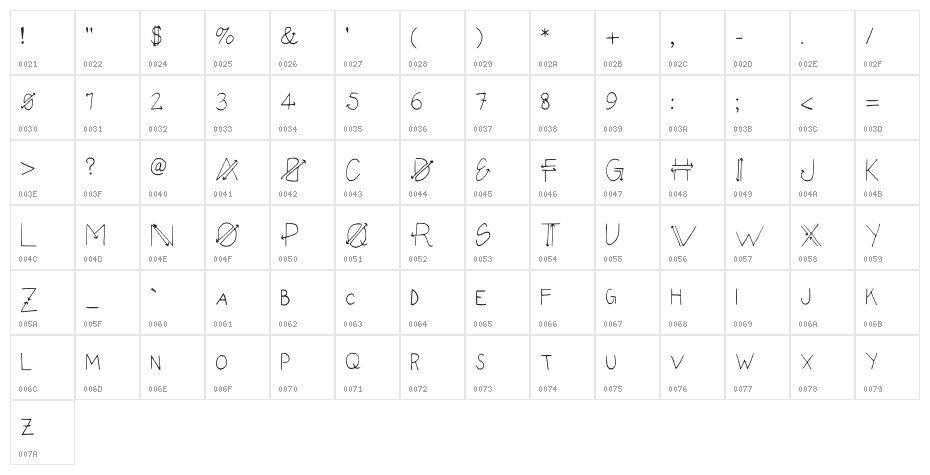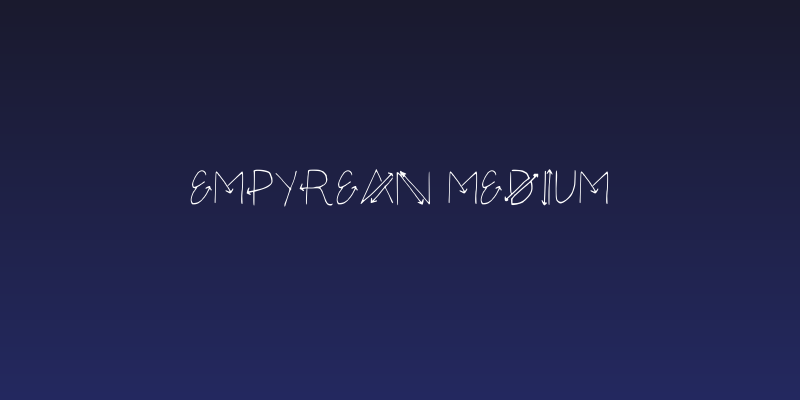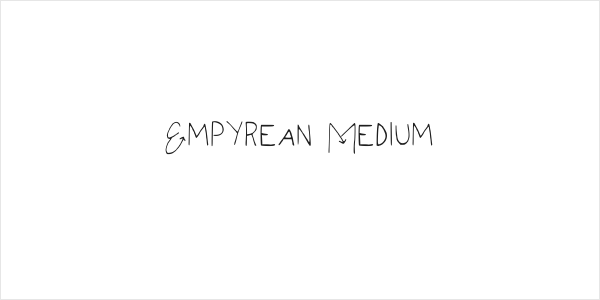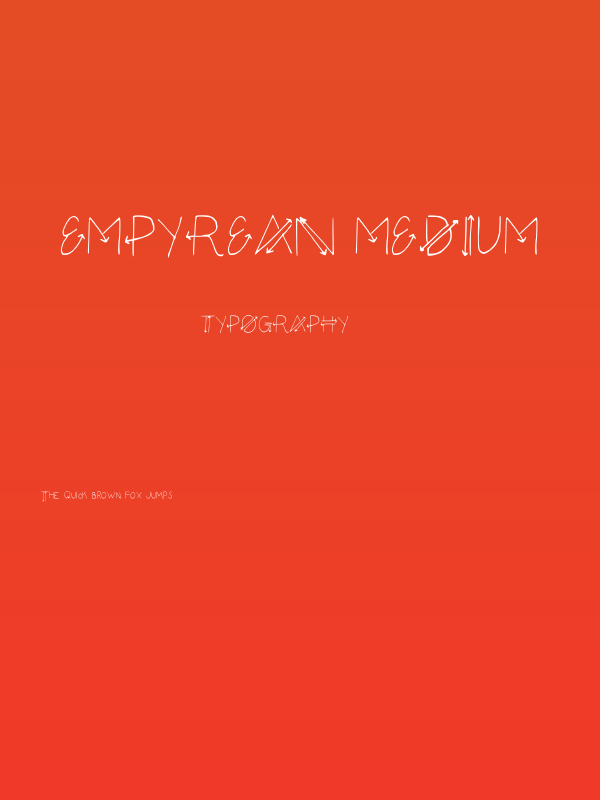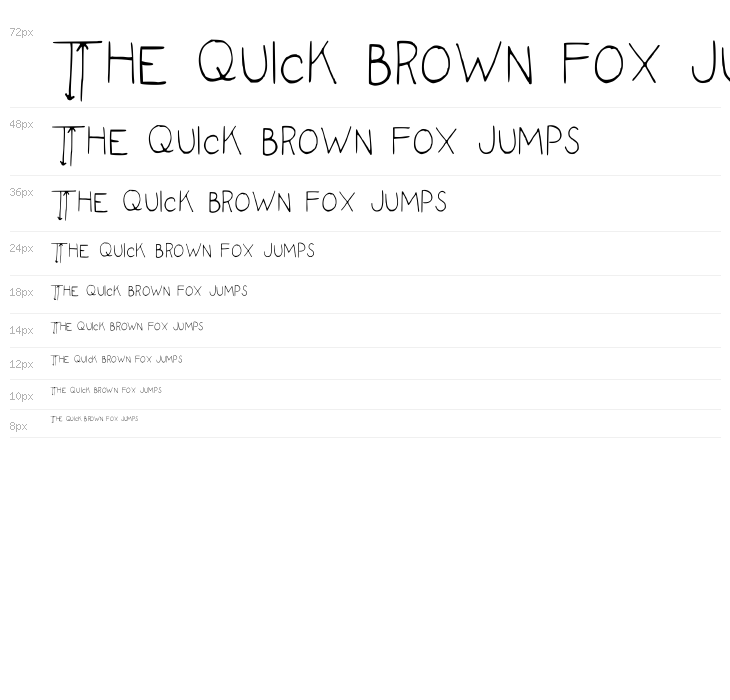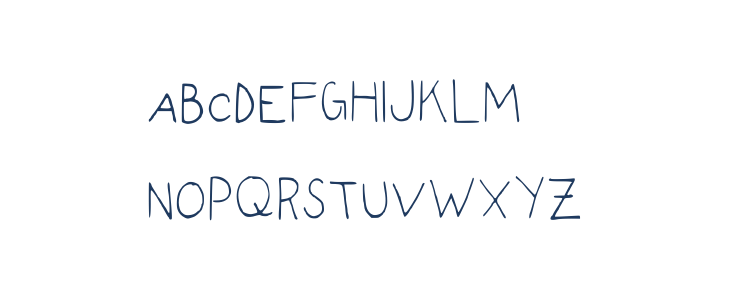
Empyrean Medium Font
Empyrean Medium Description
This font features a unique and artistic design with a playful and dynamic style. The characters are crafted with a sense of movement, incorporating arrows and lines that give an impression of direction and flow. The uppercase letters are bold and expressive, while the lowercase letters maintain a consistent style with slightly less emphasis. The numerals and special characters follow the same creative approach, ensuring a cohesive look across all glyphs. The font's distinctiveness makes it suitable for projects that require a touch of creativity and individuality.
| Overall Style | Modern, Artistic |
| Use Case | Headlines, Logos, Artistic projects |
| Proposed Projects | Ideal for creative projects such as posters, album covers, branding, and artistic presentations. |